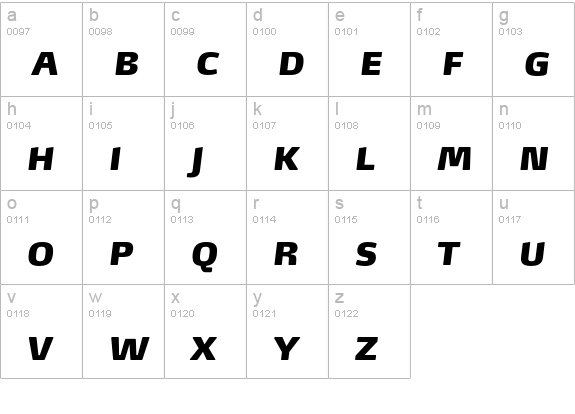
MaxTF-BlackItalicSC is a stunning and versatile font that exudes elegance and sophistication. Its bold and italicized style commands attention and adds a touch of modernity to any design project. The sleek and sleek design of MaxTF-BlackItalicSC makes it perfect for creating eye-catching headlines, brand identities, posters, and more. What's even better is that MaxTF-BlackItalicSC is available for free download at FontsMarket.com. This means that you can easily access this premium font without any cost, making it a fantastic option for designers and creatives looking to enhance their work with a high-quality typeface. Don't miss out on the opportunity to elevate your designs with the bold and stylish MaxTF-BlackItalicSC font - download it for free today at FontsMarket.com!